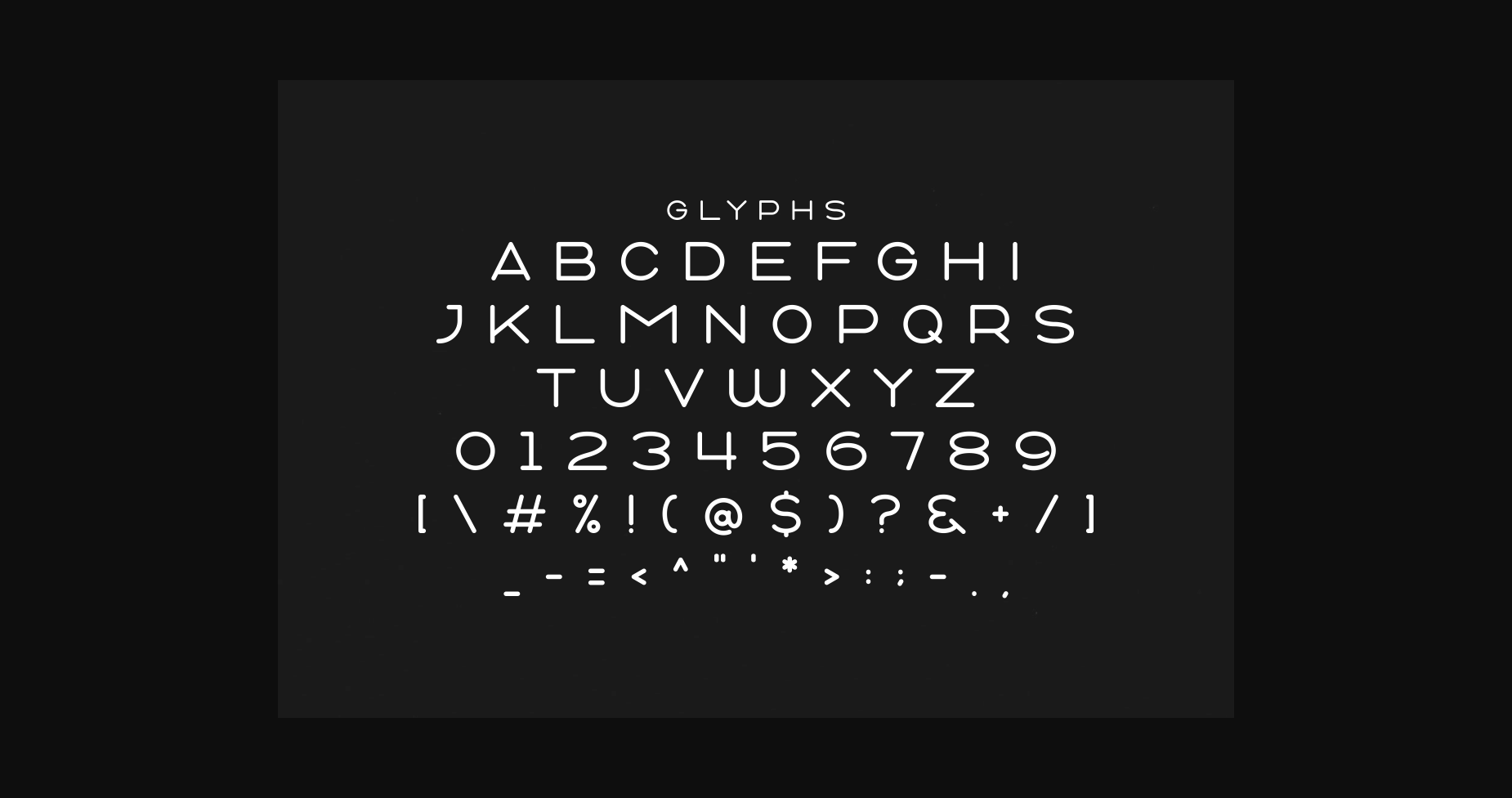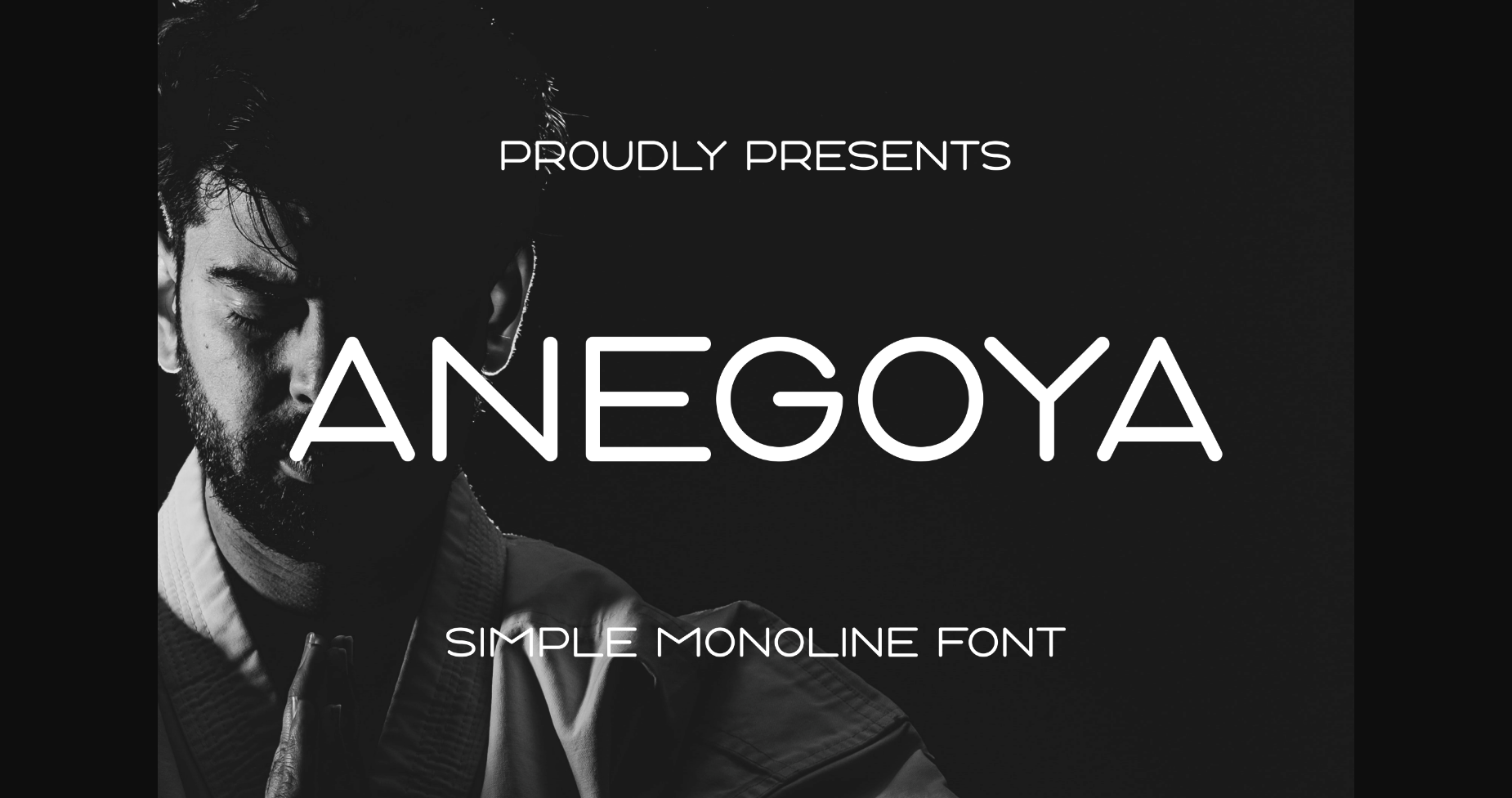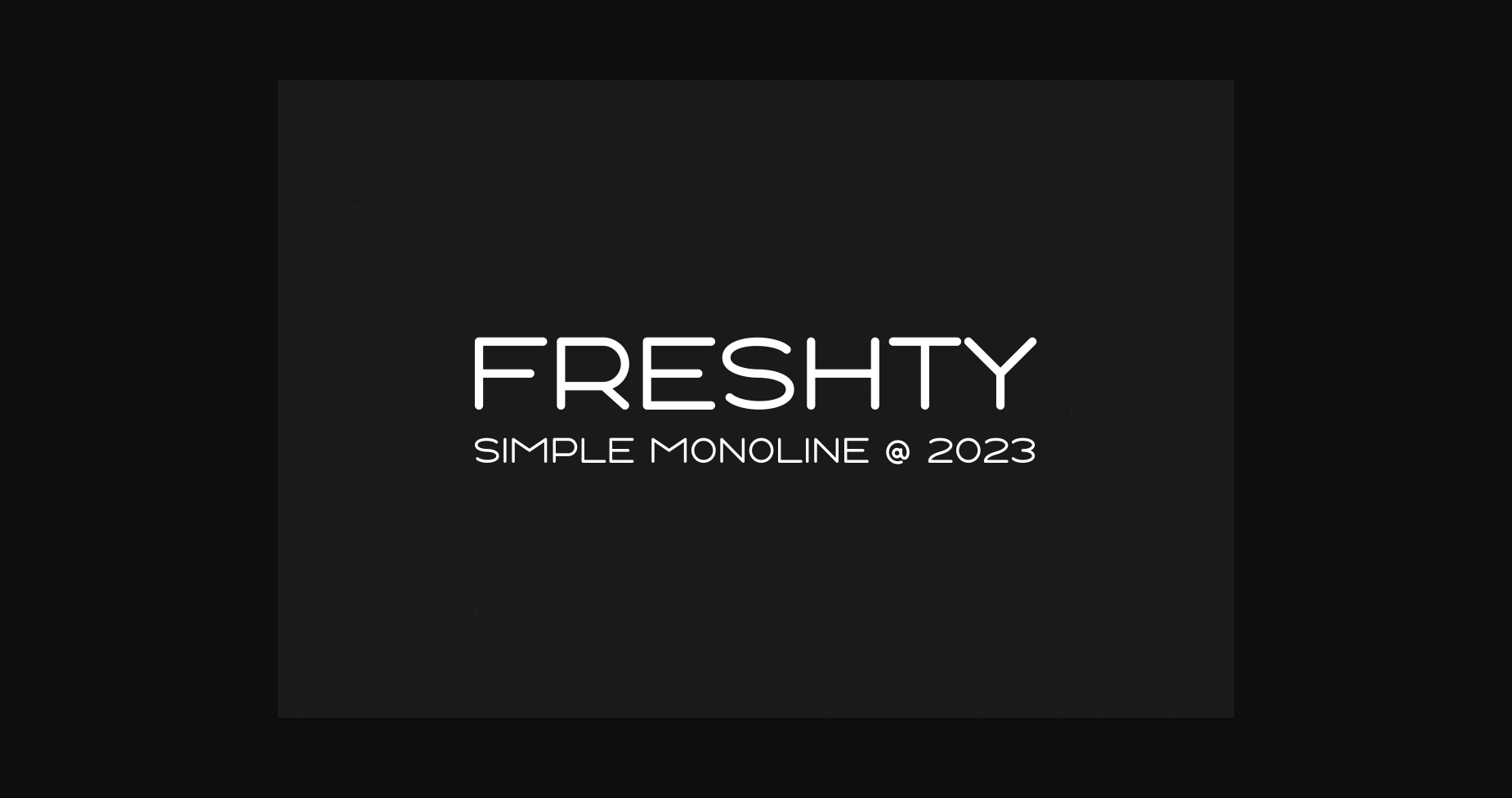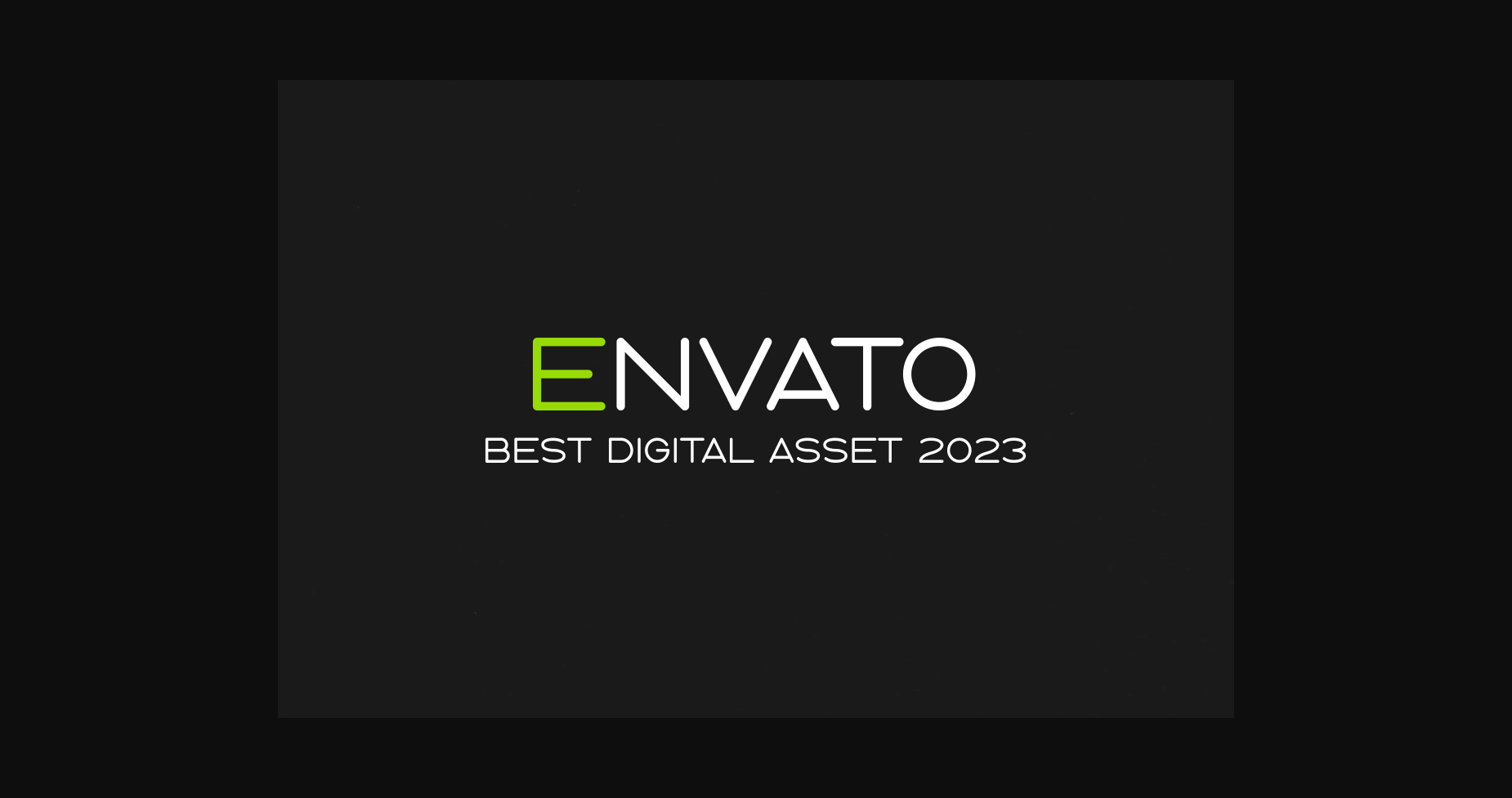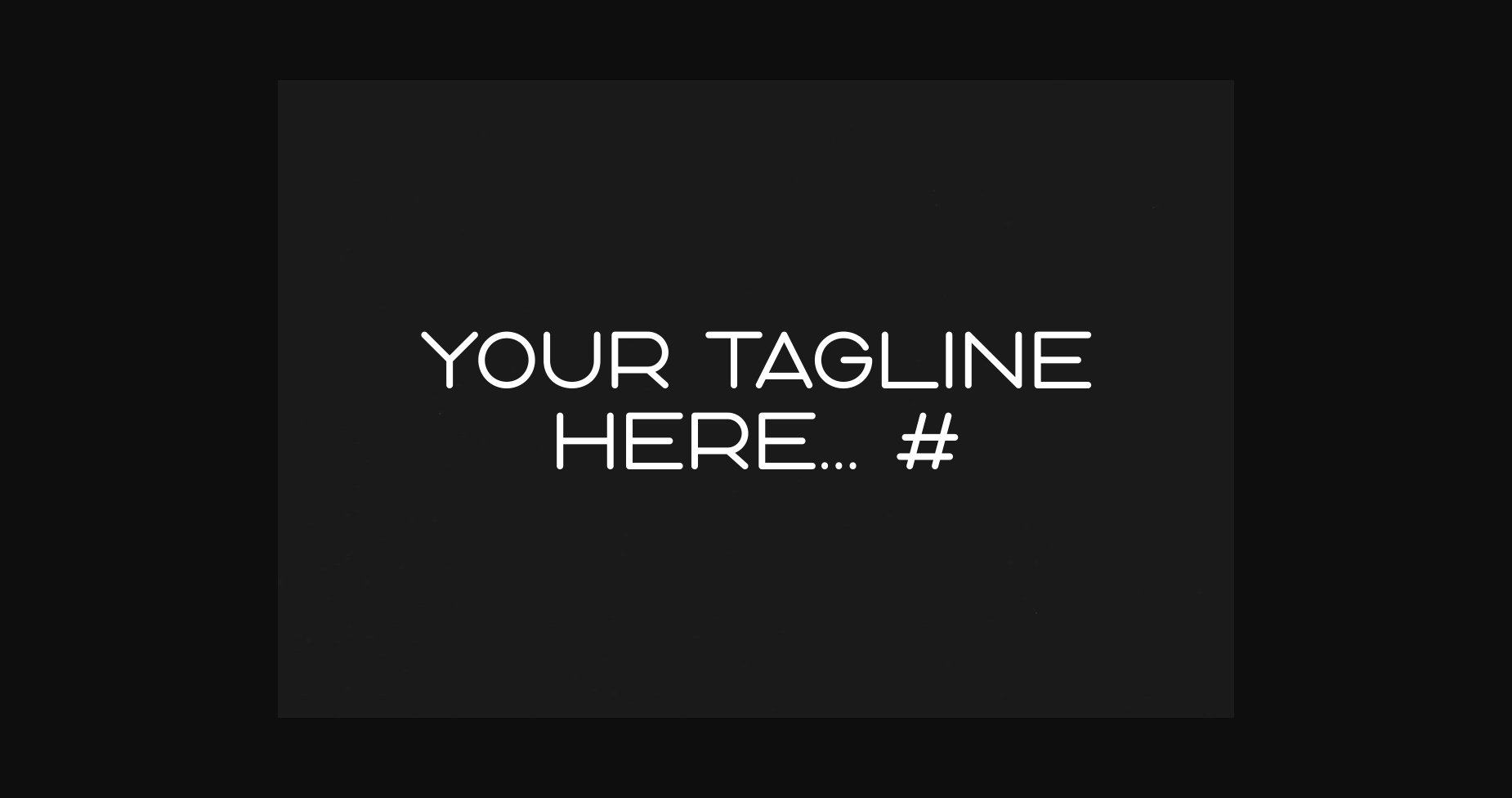
About Anegoya Font
Anegoya is a dynamic and vibrant display font that will make your text pop. With its bold and playful design, this font is perfect for eye-catching posters, product packaging, and social media graphics. Its bright colors and unique style will bring energy and excitement to any project.